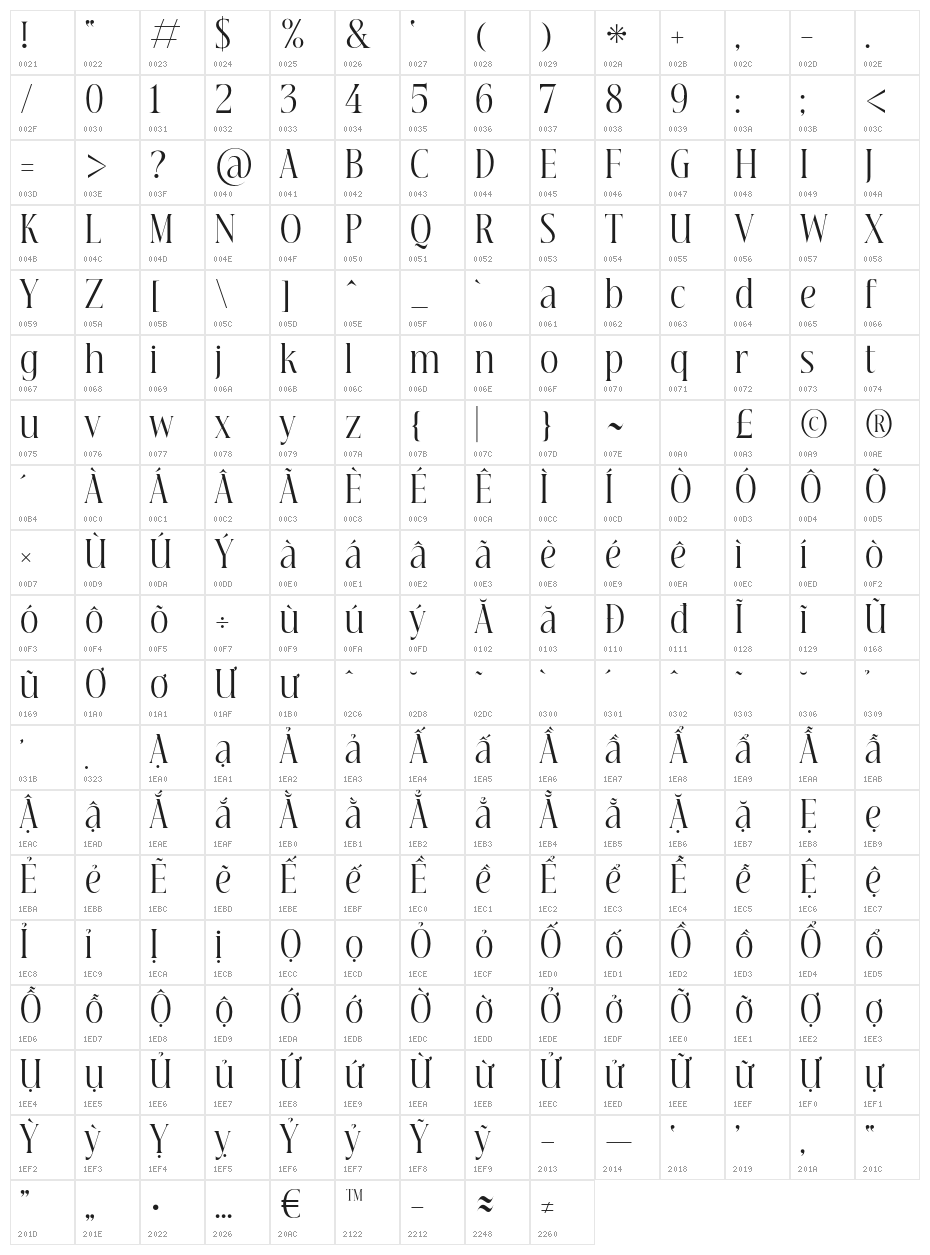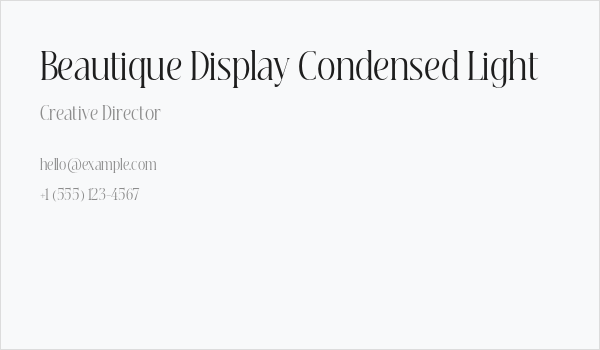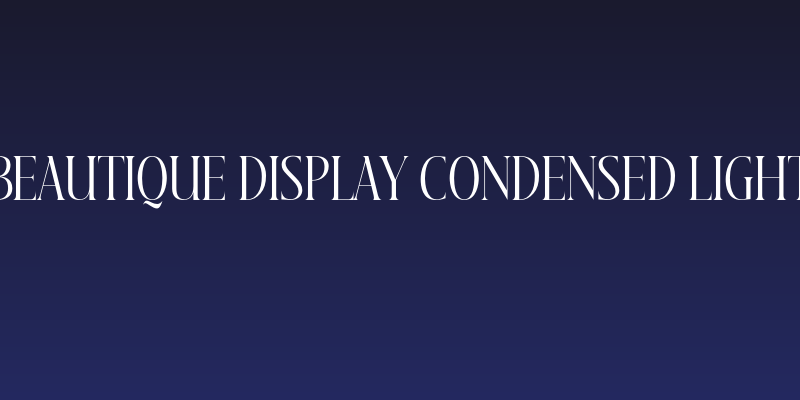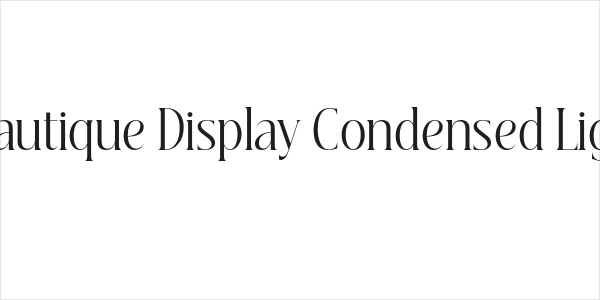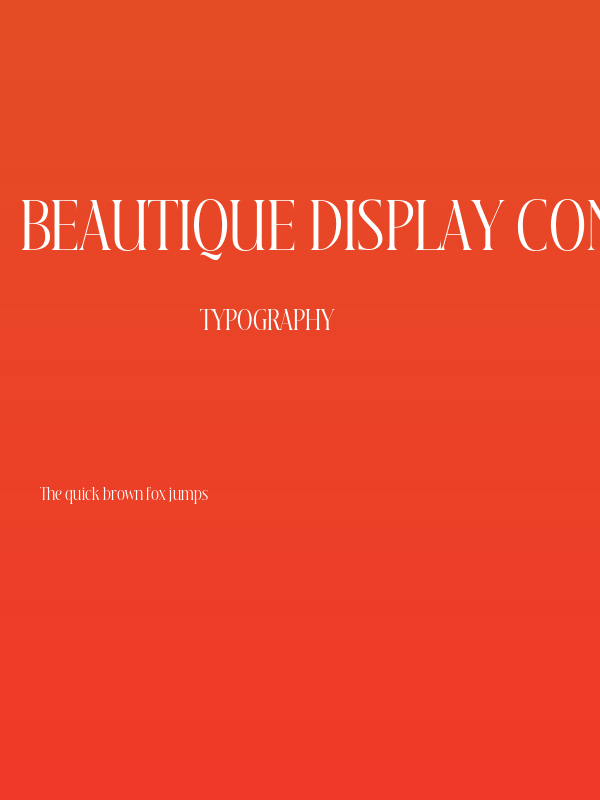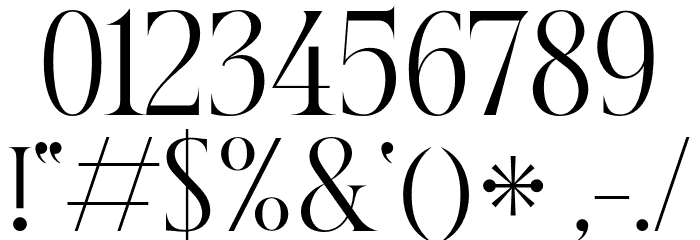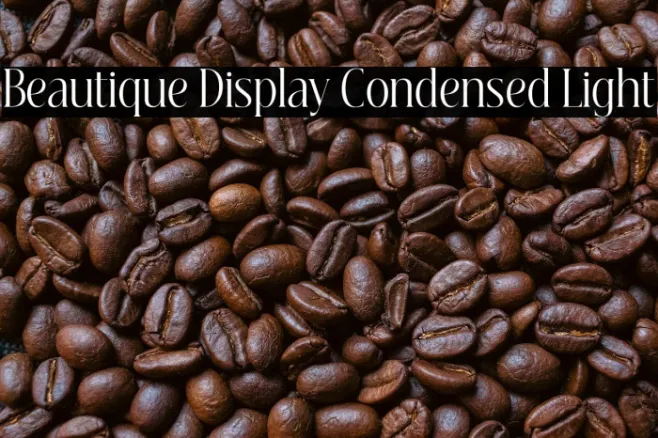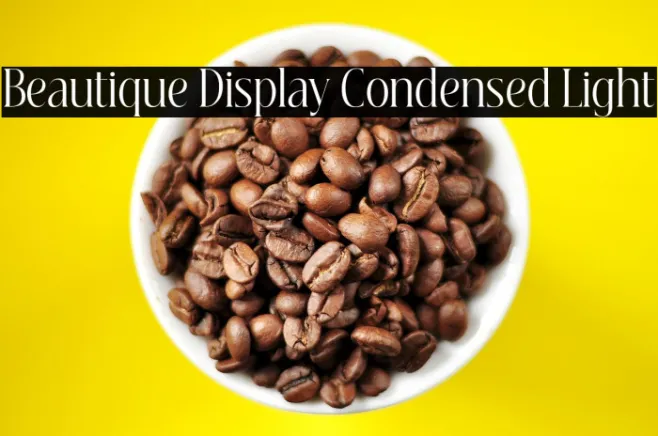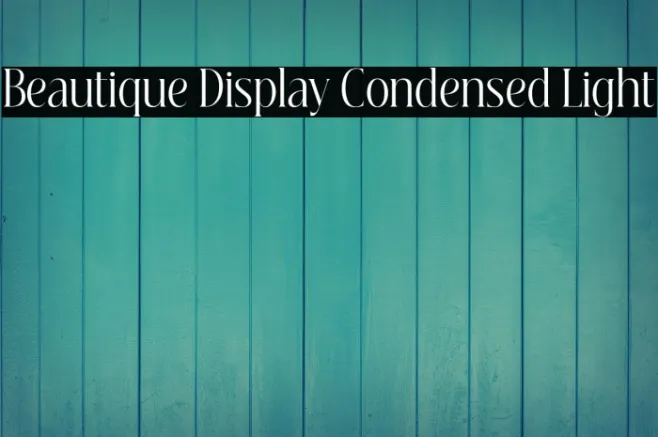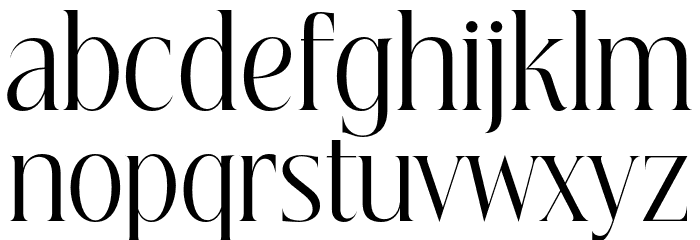
Beautique Display Condensed Light Font
Beautique Display Condensed Light Description
This font exudes elegance and sophistication with its tall, slender letterforms and high contrast between thick and thin strokes. The condensed nature of the characters gives it a sleek and modern appearance, making it ideal for creating a refined and stylish look. The uppercase letters are particularly striking, with their elongated forms and sharp serifs, while the lowercase letters maintain a graceful flow. The numerals and special characters are designed with the same attention to detail, ensuring consistency across all elements. This font is perfect for projects that require a touch of class and distinction.